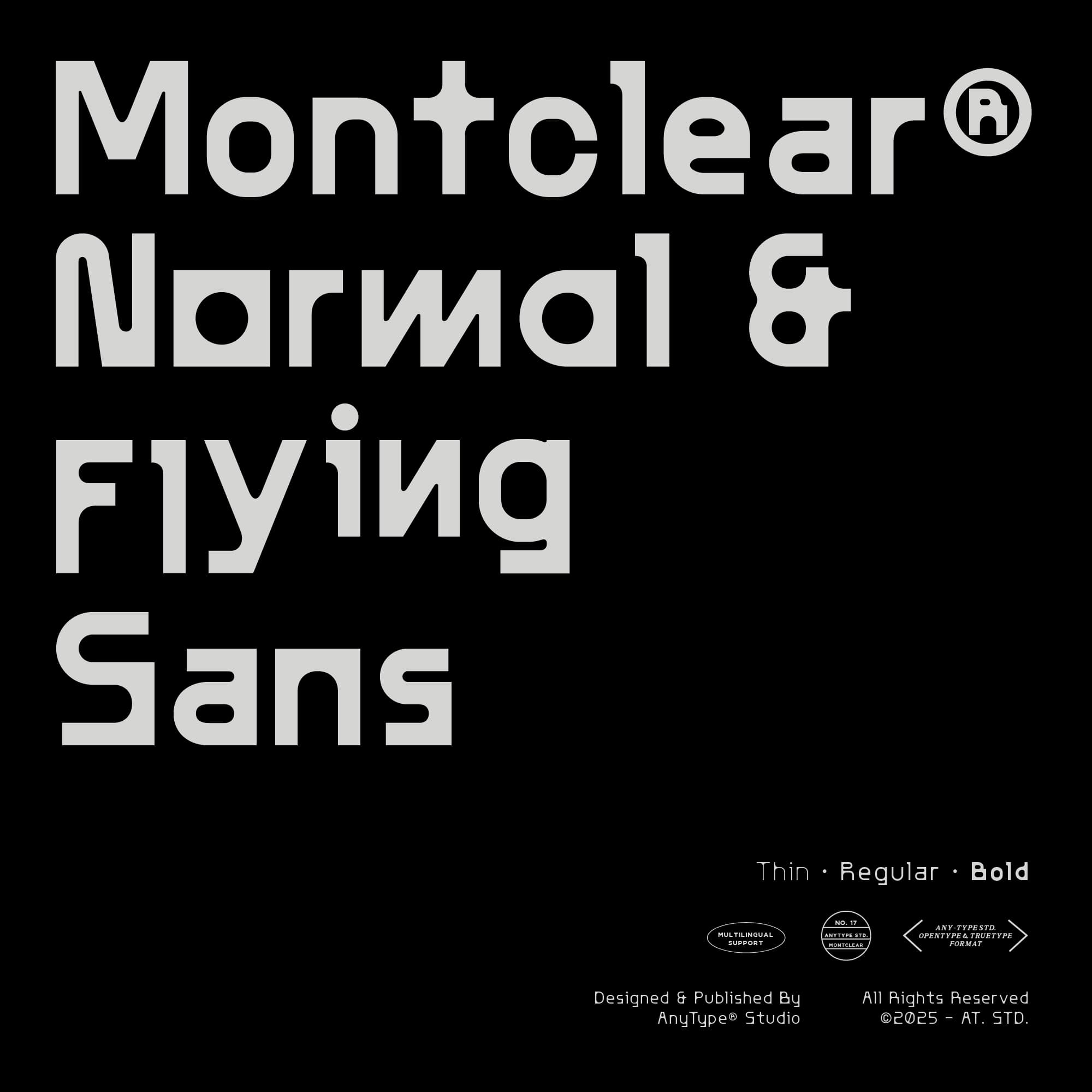
<p>AT Montclear offers two distinct styles: Normal and Flying. In the Flying style, the descender line of all glyphs is elevated to the baseline, aligning the top of the lowercase letters with the cap height of uppercase letters. Both styles are available in three weights: Thin, Regular, and Bold. With additional alternate options, this font allows for dynamic styling in each of your design projects.</p><p> </p><p>Inspired by the heritage of event typography and perfectly suited for the digital age, AT Montclear excels across various applications. Whether used for branding, advertising, user interfaces, or digital content, this font ensures your projects stand out with both style and substance.</p><p> </p><p>Features</p><ul><li><p>2 Style Font (Normal & Flying)</p></li><li><p>Multilingual Support</p></li><li><p>3 weights for each style: Thin, Regular, Bold</p></li></ul><p></p>